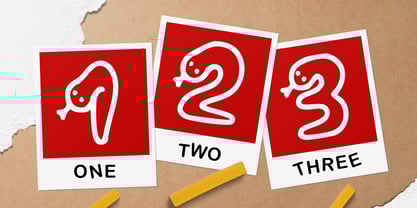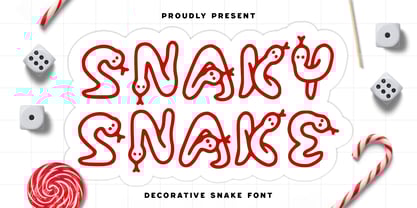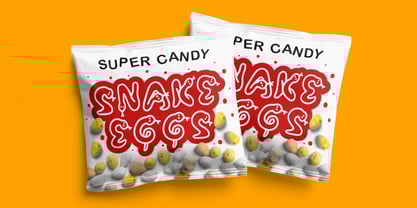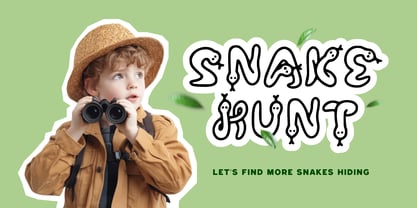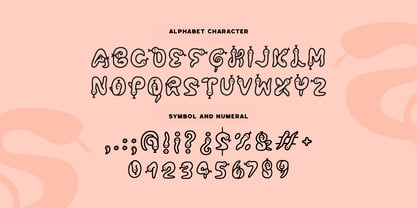
Snaky Snake
by Imoodev
The Snaky Snake Font Family was designed by Aulia Savira Putri and published by Imoodev. Snaky Snake contains 1 styles. More about this family
Unleash your creativity with Snaky Snake, a delightfully charming and unique decorative font! Each letter is ingeniously crafted to resemble a friendly snake, complete with a cute head and a slithering body that twists and turns to form the alphabet. Ideal for children's designs, branding projects, and eye catching headlines. Whether you're creating t-shirts, candy packaging, book covers, posters, or educational materials. The consistent and adorable snake details in every character, including the numbers and punctuation, ensure a cohesive and professional look.
Designers: Aulia Savira Putri
Foundry: Imoodev